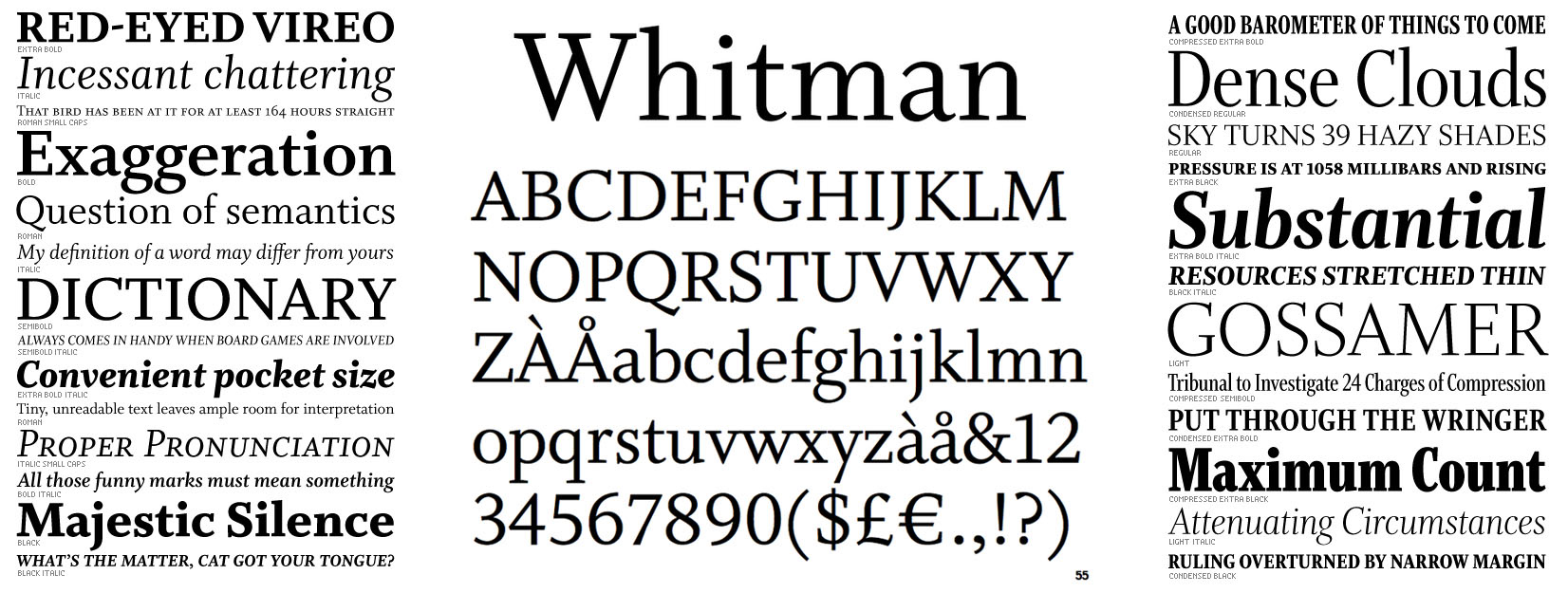
Whitman Font
Whitman Font is perfect for literary publications, academic journals, poetry books, scholarly articles, classical literature editions, cultural magazines, museum catalogs, prestigious university materials, historical documents, and distinguished editorial layouts.
Whitman Font is exciting because it embodies the profound wisdom and literary elegance of America's greatest poetic tradition, creating a serif typeface that celebrates intellectual depth, artistic expression, and scholarly excellence. This font brings literary sophistication and academic gravitas to any project, making it ideal for publishers, educational institutions, and cultural organizations that value knowledge, artistic expression, and intellectual heritage. Its classical proportions and refined character create an atmosphere of scholarly distinction that honors the tradition of great literature.
Whitman Font family includes light, regular, medium, bold, and black weights, each available in roman and italic styles with scholarly ligatures and poetic alternates, providing designers with comprehensive tools for creating distinguished literary typography and culturally significant publications.
This distinguished literary typeface combines classical American typography traditions with contemporary publishing excellence, making Whitman Font Free Download a premium choice for projects celebrating literature and intellectual achievement. The font's meticulously crafted letterforms feature elegant proportions and scholarly details that evoke the dignity of great literary works and academic discourse.
Whether you're designing poetry collections, academic publications, or cultural institution materials, Whitman Font delivers unmatched literary elegance and intellectual credibility. The font excels particularly in extended reading applications where its refined character enhances comprehension while honoring the literary tradition of thoughtful expression.
Publishing professionals choose Whitman Font for its ability to enhance the reading experience while projecting intellectual authority and literary sophistication. The font's scholarly character makes it the preferred choice for university presses, literary journals, and prestigious cultural publications.
Each character reflects the noble tradition of American letters, featuring classical elegance and scholarly proportions that create typography worthy of the finest literary works and most distinguished academic achievements.